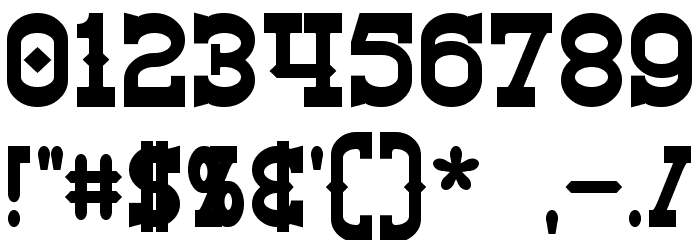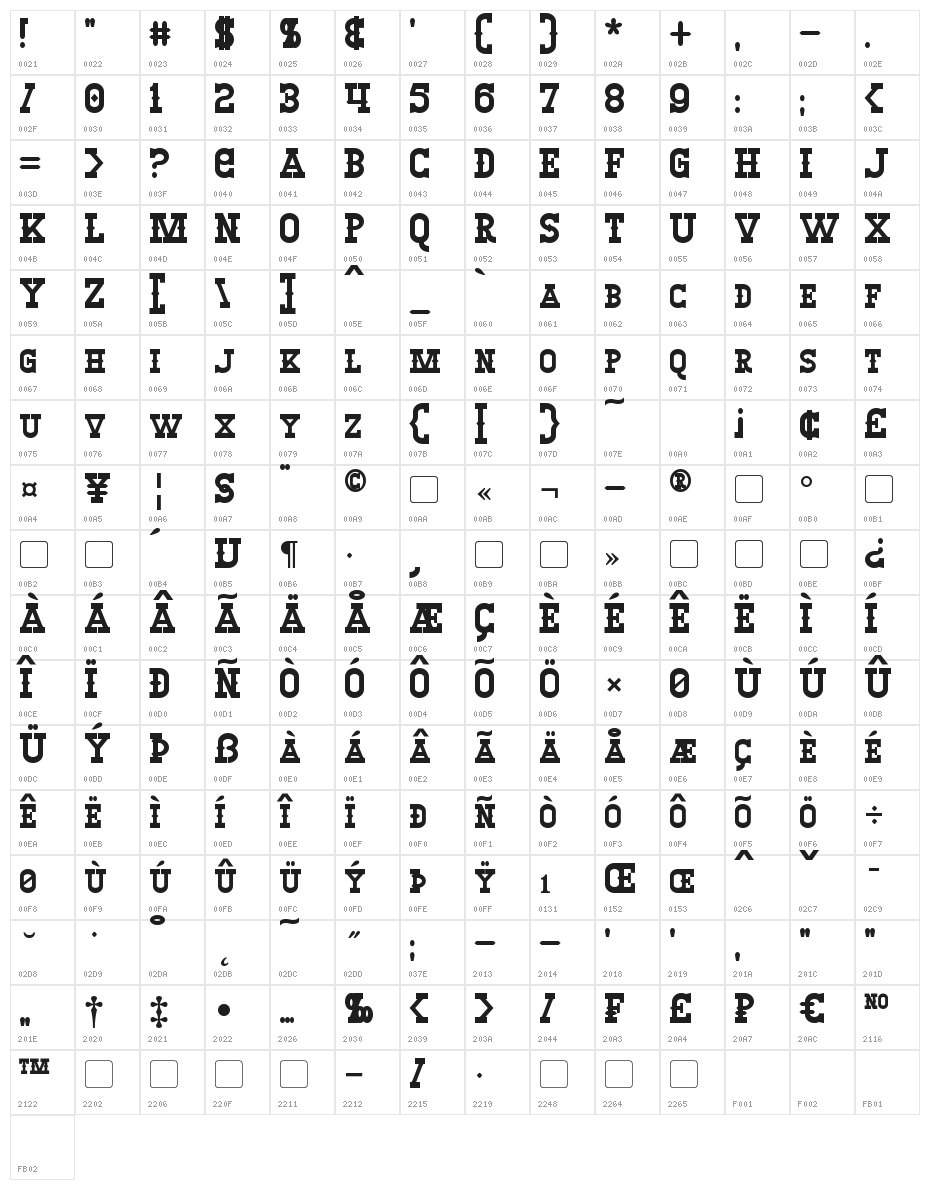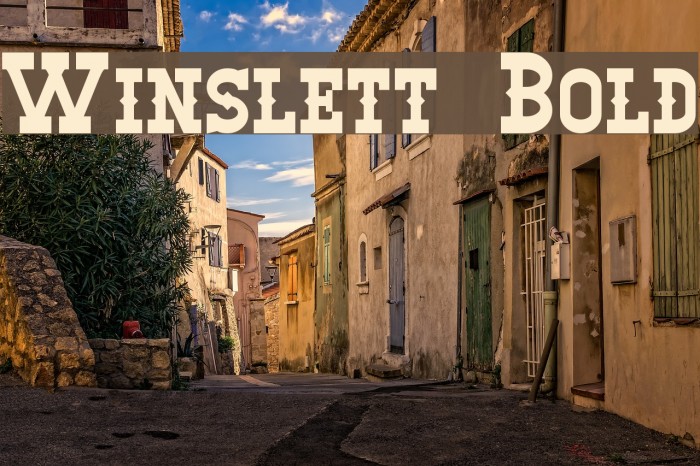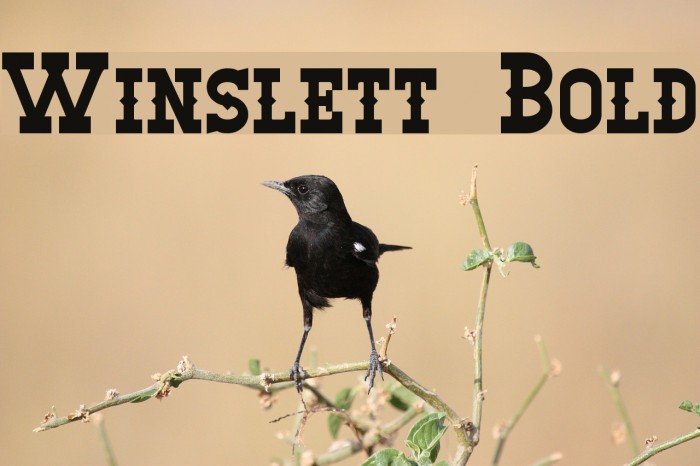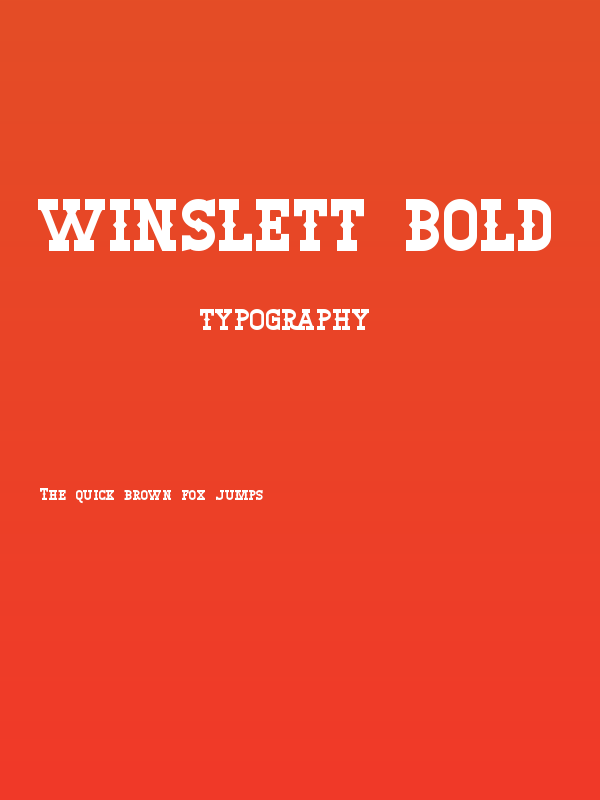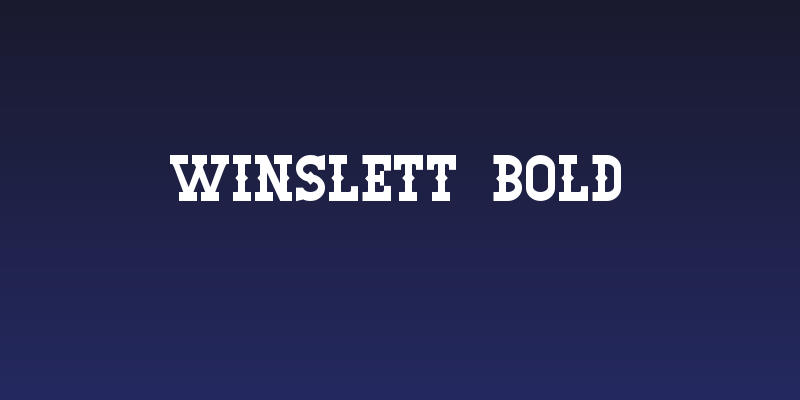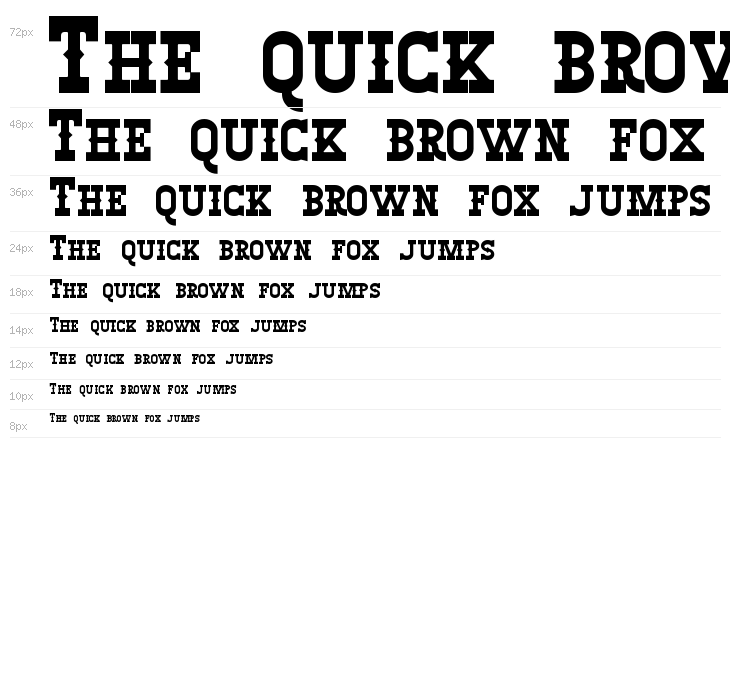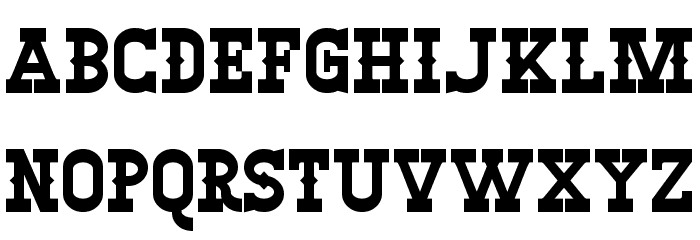
Winslett Bold Font
Winslett Bold Description
This font features bold, blocky characters with a strong presence, ideal for making a statement. The letters are uniformly thick, with a slab serif style that adds a touch of classic appeal. The uppercase and lowercase letters maintain a consistent weight, ensuring readability and impact. The numbers are equally bold, with a geometric design that complements the overall aesthetic. Special characters are distinct and clear, making them suitable for various design needs. The font's robust nature makes it perfect for headlines, posters, and any project requiring a commanding visual element.
| Proposed Projects | Ideal for posters, headlines, branding, and any project needing a bold statement. |